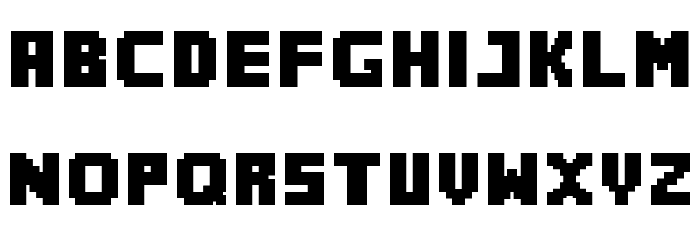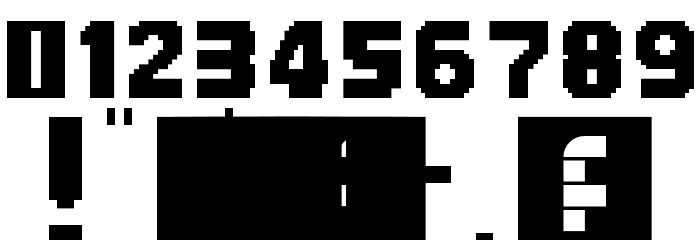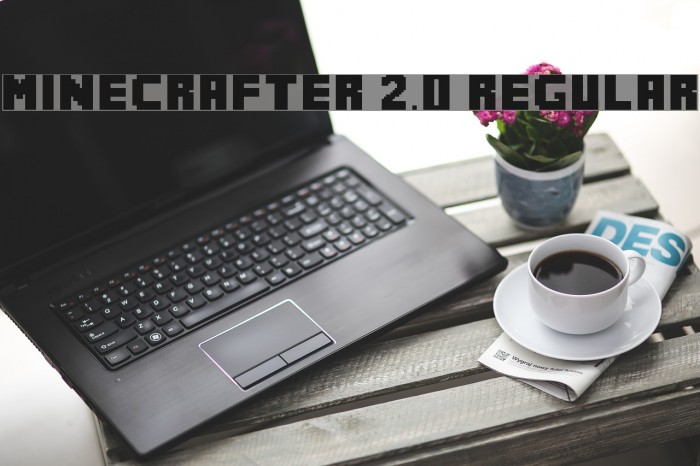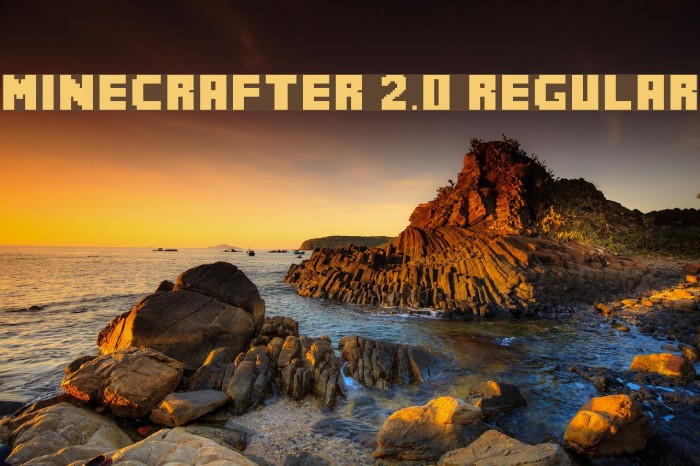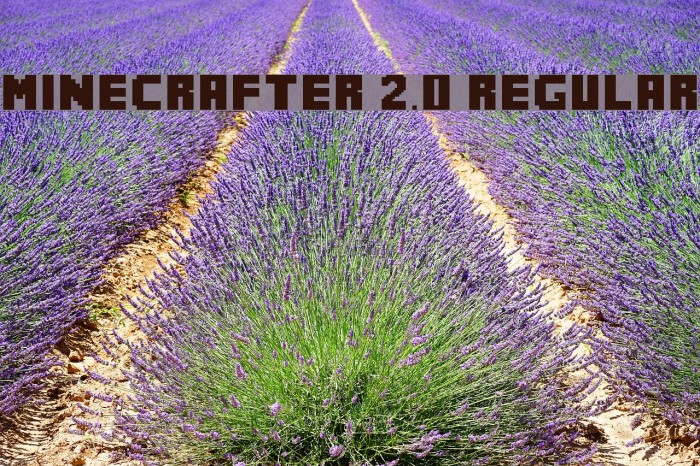
MineCrafter 2.0 Regular Font
This font features a bold, blocky design reminiscent of pixel art, making it ideal for projects that require a retro or video game aesthetic. The characters are uniformly square, with each letter and number maintaining a consistent height and width, contributing to a cohesive and structured appearance. The font's geometric nature ensures high readability, even at smaller sizes, while its distinct style adds a playful and nostalgic touch. The special characters are designed with the same pixelated style, ensuring uniformity across all elements.
A bold, pixelated font ideal for retro and video game-themed projects.
- Proposed Projects: Perfect for video game graphics, retro-themed posters, digital art, and any project requiring a nostalgic or playful touch.
- Overall Style: Retro, Playful